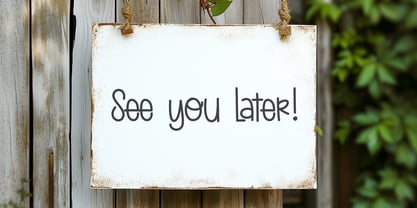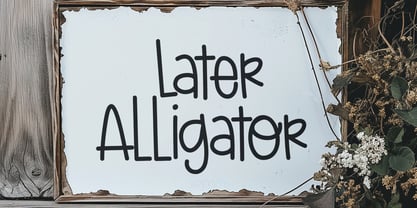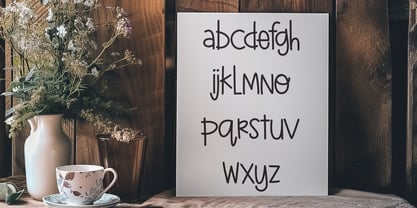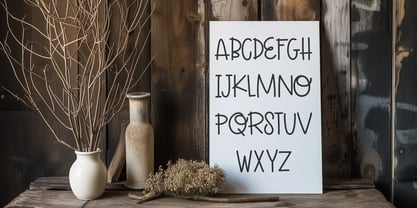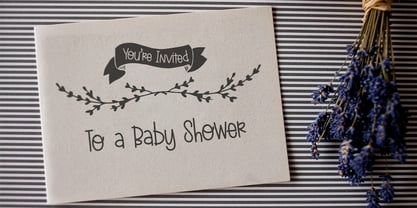
Later Alligator Regular
by Miss Kate Designs
The Later Alligator Regular Font Family was designed by and published by Miss Kate Designs. Later Alligator Regular contains 1 styles. More about this family
Later Alligator is a fun, handwritten font. Perfect for greeting cards, logos, modern websites, apparel design and more.